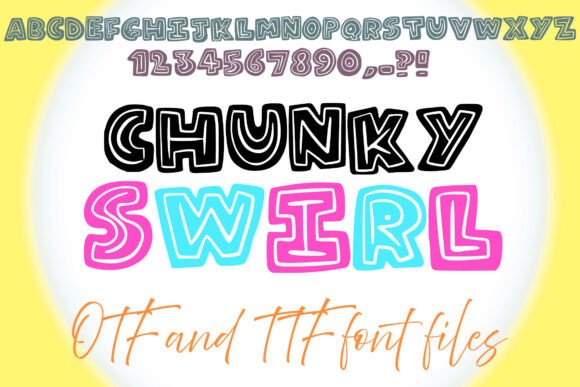
Introducing Chunky Swirl Font: Adding a Playful Touch to Your Designs
In the world of typography, fonts play a crucial role in conveying the tone and personality of a brand or design. When it comes to creating visually appealing and engaging content, the right font can make all the difference. If you’re looking for a font that exudes fun, energy, and playfulness, look no further than Chunky Swirl Font. In this article, we’ll dive into the features and benefits of Chunky Swirl, and explore how this lively and bold outline font can elevate your designs.
What is Chunky Swirl Font?
Chunky Swirl is a hand-drawn, outline font that boasts a bubbly and lively aesthetic. Its unique design makes it perfect for adding a touch of fun and personality to a wide range of projects, from children’s designs and comics to posters, social media graphics, and creative branding. With its bold and chunky outline, Chunky Swirl Font is sure to grab attention and leave a lasting impression.
Key Features of Chunky Swirl Font
- Hand-drawn design: Chunky Swirl Font features a unique, hand-drawn design that gives it a personal and playful touch.
- Bubbly aesthetic: The font’s bubbly aesthetic makes it perfect for designs that require a fun and energetic vibe.
- Layered outline effects: Chunky Swirl Font features layered outline effects that add depth and dimension to your text.
- Bold and chunky outline: The font’s bold and chunky outline makes it perfect for grabbing attention and standing out from the crowd.
Use Cases for Chunky Swirl Font
Chunky Swirl Font is a versatile font that can be used in a variety of design projects. Here are some use cases where Chunky Swirl Font shines:
- Children’s designs: Chunky Swirl Font is perfect for children’s book illustrations, nursery rhymes, and kids’ party invitations.
- Comics and cartoons: The font’s playful and energetic vibe makes it ideal for comic book titles, cartoon captions, and animated movie posters.
- Posters and flyers: Chunky Swirl Font is great for creating eye-catching posters and flyers for events, concerts, and festivals.
- Social media graphics: The font’s bold and chunky outline makes it perfect for social media graphics, such as Facebook posts, Instagram captions, and Twitter headers.
- Creative branding: Chunky Swirl Font can be used to create unique and memorable brand identities for businesses, products, and services.
Benefits of Using Chunky Swirl Font
Using Chunky Swirl Font in your designs offers several benefits, including:
- Unique and playful aesthetic: Chunky Swirl Font adds a touch of fun and personality to your designs.
- Attention-grabbing: The font’s bold and chunky outline grabs attention and makes your text stand out.
- Versatile: Chunky Swirl Font can be used in a wide range of design projects, from children’s designs to creative branding.
- Easy to read: Despite its bold and chunky outline, Chunky Swirl Font is easy to read and understand.
Tips for Using Chunky Swirl Font Effectively
To get the most out of Chunky Swirl Font, here are some tips to keep in mind:
- Use it sparingly: While Chunky Swirl Font is attention-grabbing, it’s best to use it sparingly to avoid overwhelming your design.
- Pair it with simple fonts: Pair Chunky Swirl Font with simple fonts to create contrast and visual interest.
- Experiment with colors: Chunky Swirl Font looks great in bold and bright colors, so don’t be afraid to experiment with different color schemes.
- Consider your audience: Chunky Swirl Font is perfect for designs aimed at children or young adults, but may not be suitable for more formal or professional designs.
In conclusion, Chunky Swirl Font is a lively and bold outline font that adds a playful touch to any design project. With its hand-drawn design, bubbly aesthetic, and layered outline effects, Chunky Swirl Font is perfect for children’s designs, comics, posters, social media graphics, and creative branding. By following the tips outlined in this article, you can use Chunky Swirl Font effectively and create visually appealing designs that grab attention and leave a lasting impression.